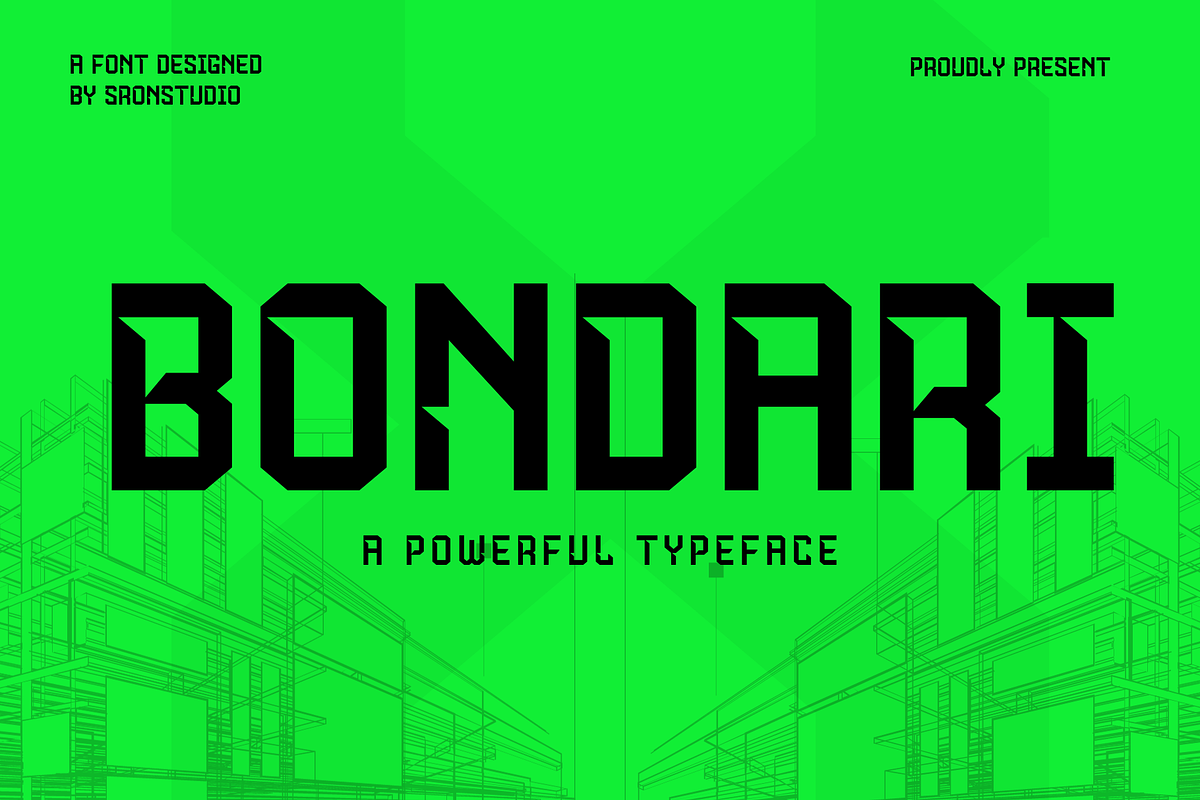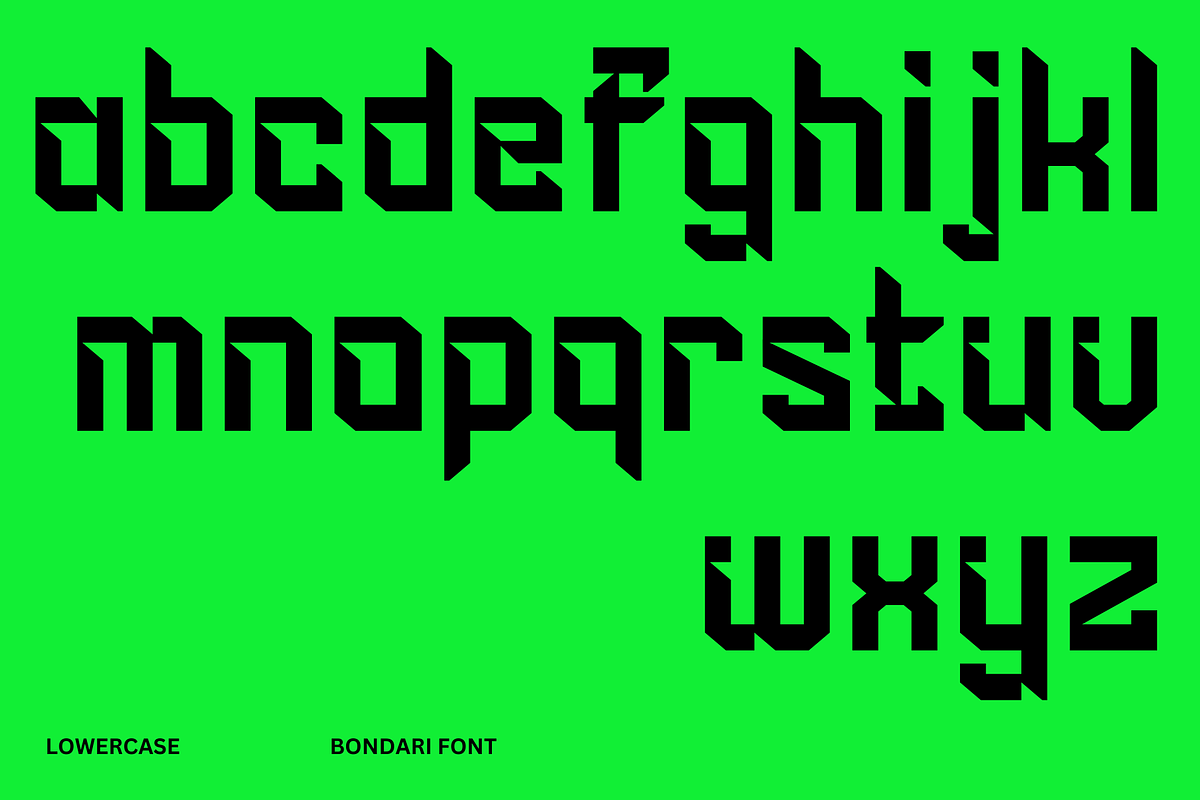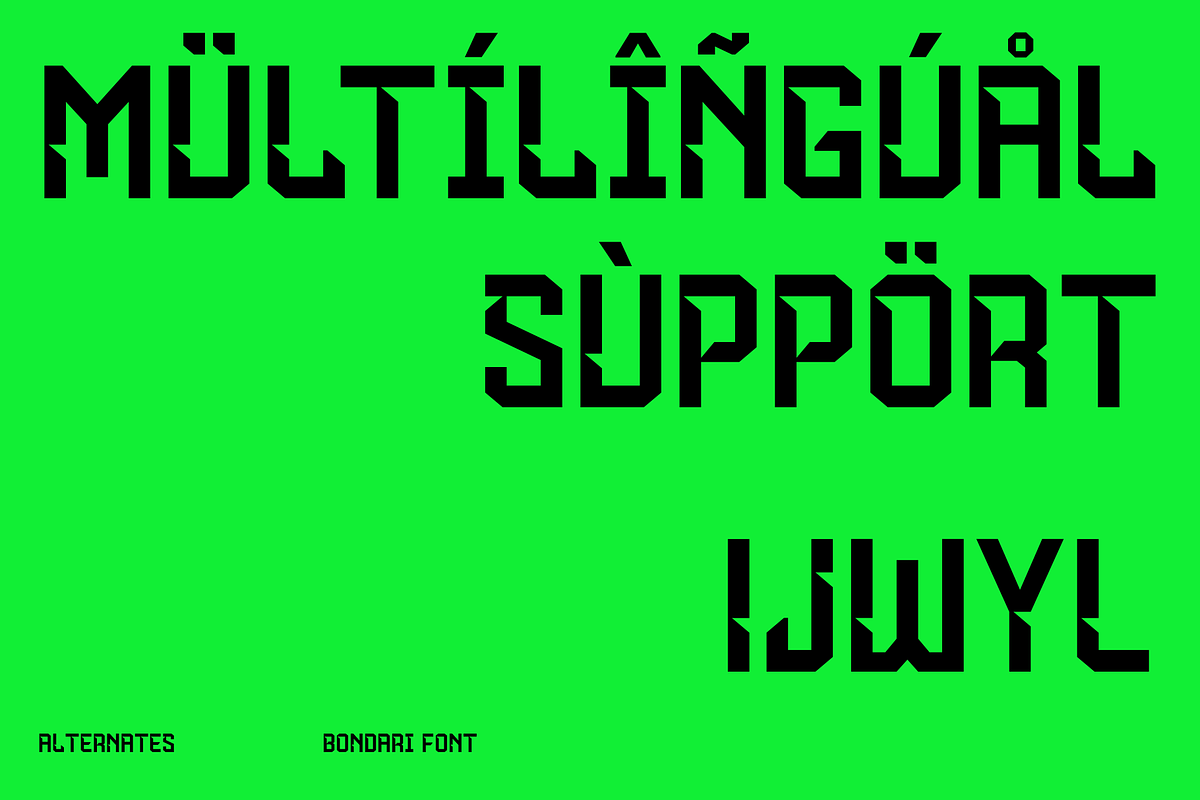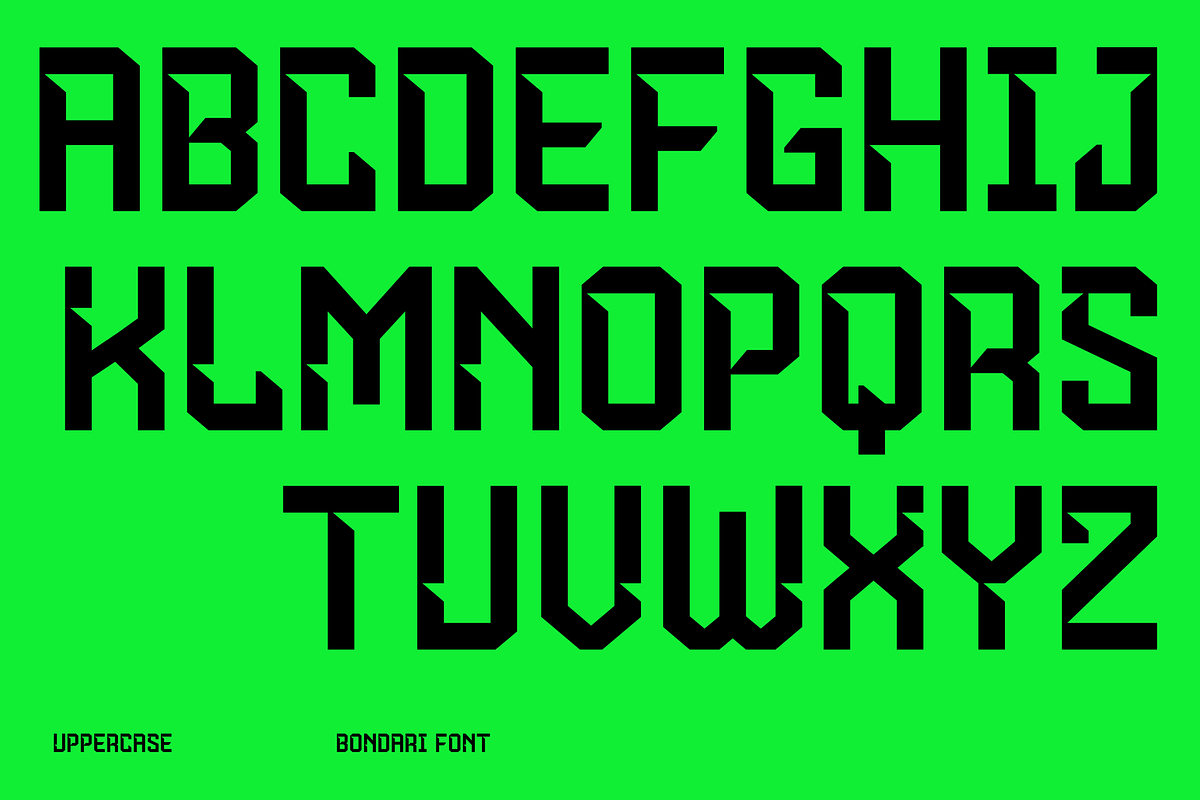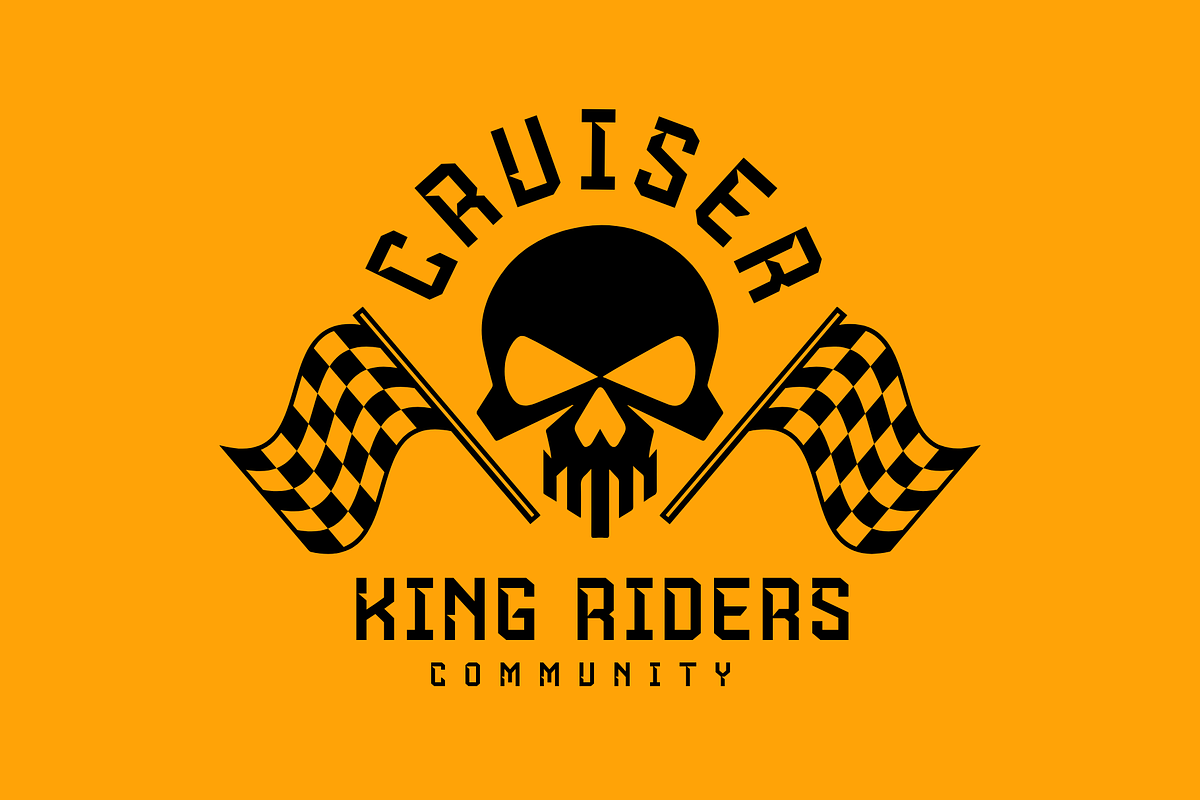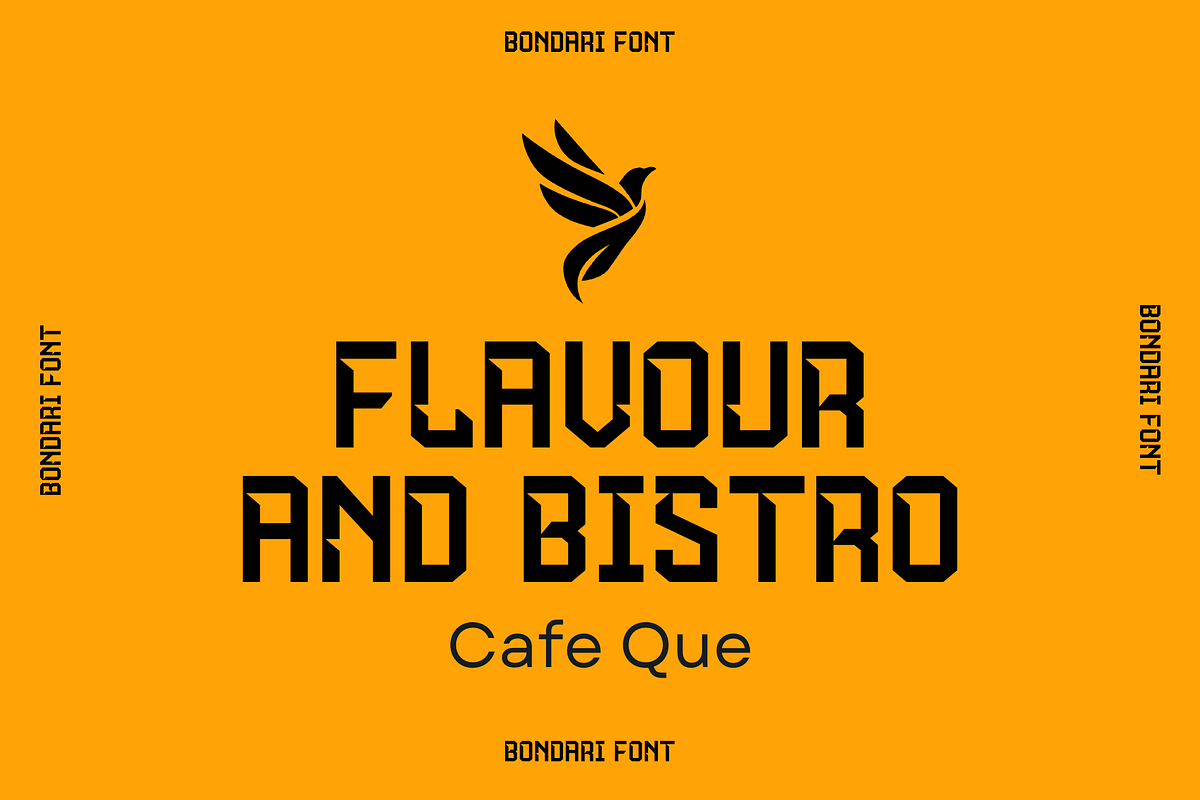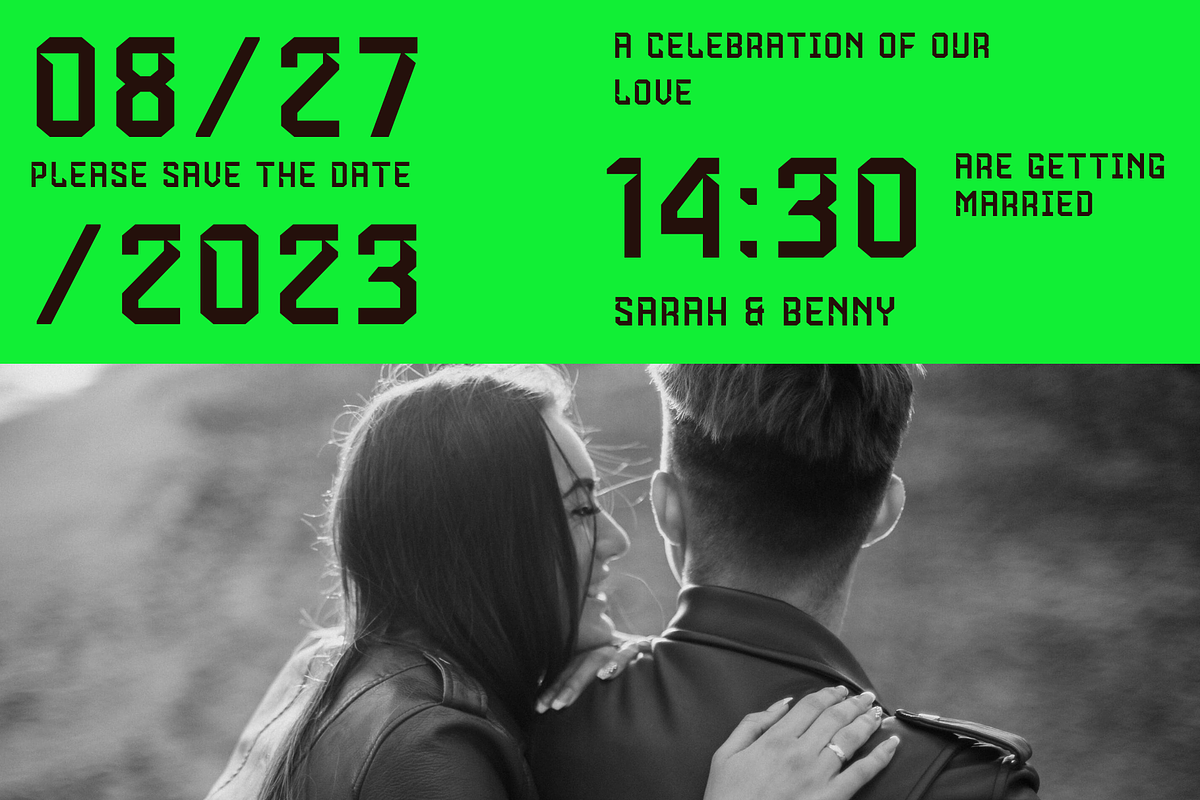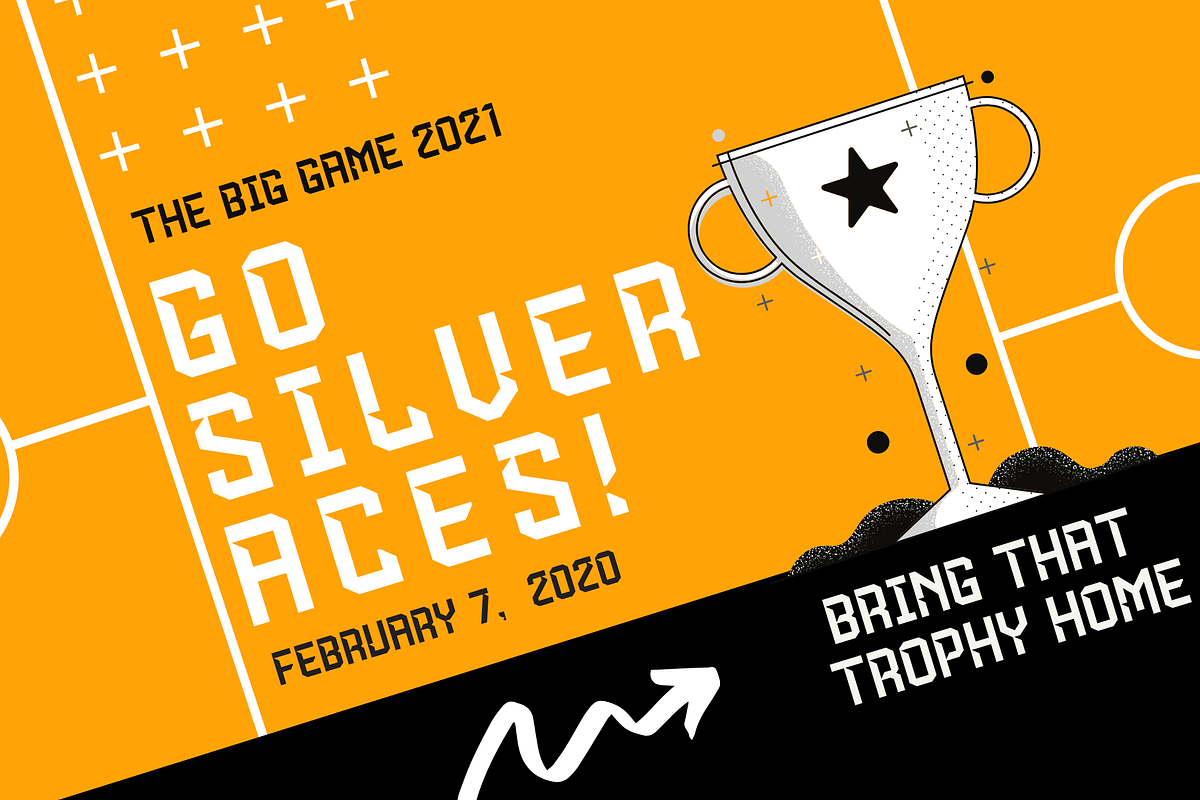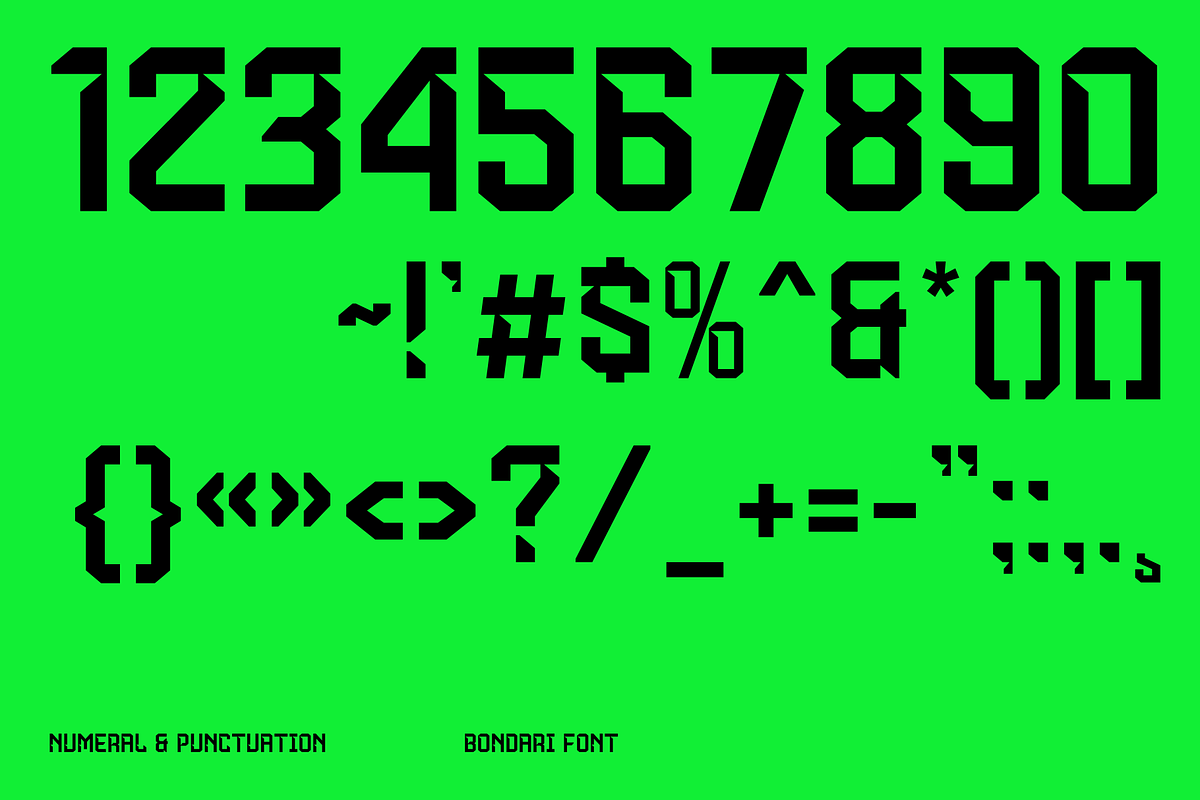
Bondari - Powerful Typeface
Bondari is a font that embodies boldness, power, and strength. With its robust letterforms and commanding design, it makes a striking statement in any project. Ideal for branding, headlines, or any design that requires a strong and impactful presence, "Bondari" exudes a sense of unwavering force and authority.
- Uppercase and lowercase letters
- Alternate Glyph
- Multilingual, numerals, and punctuation